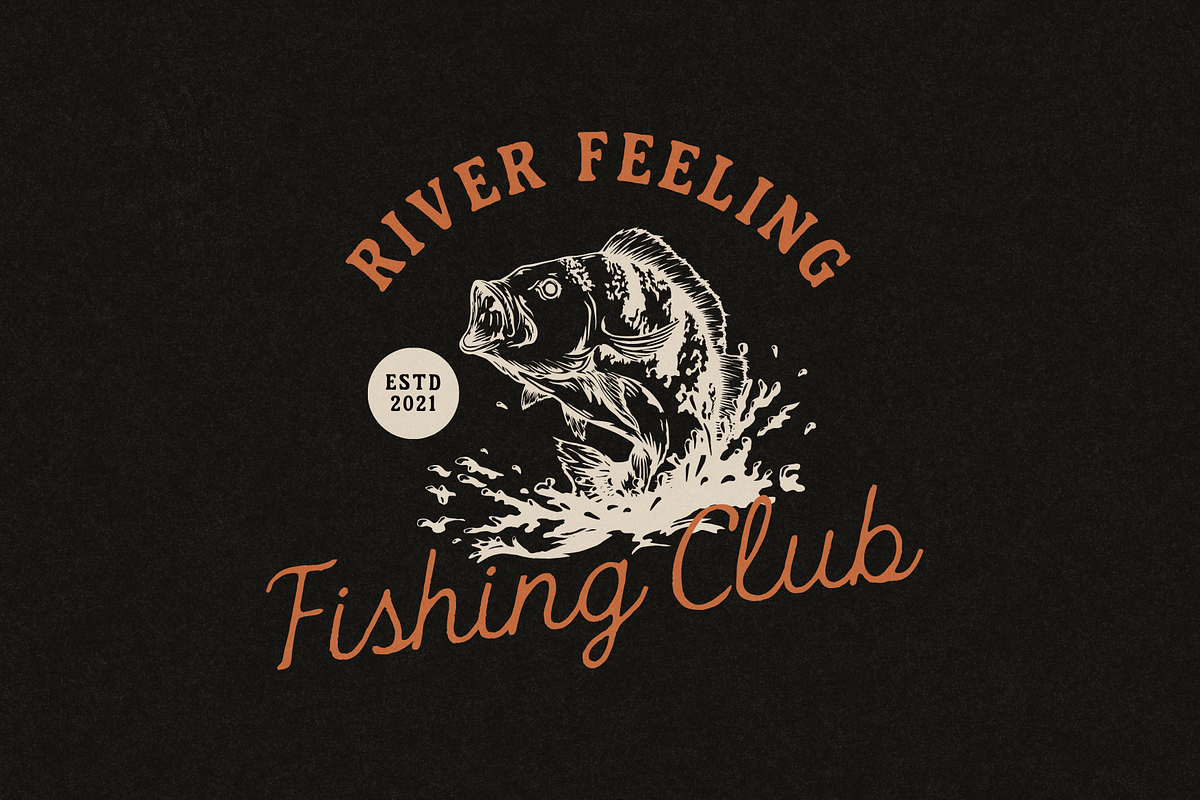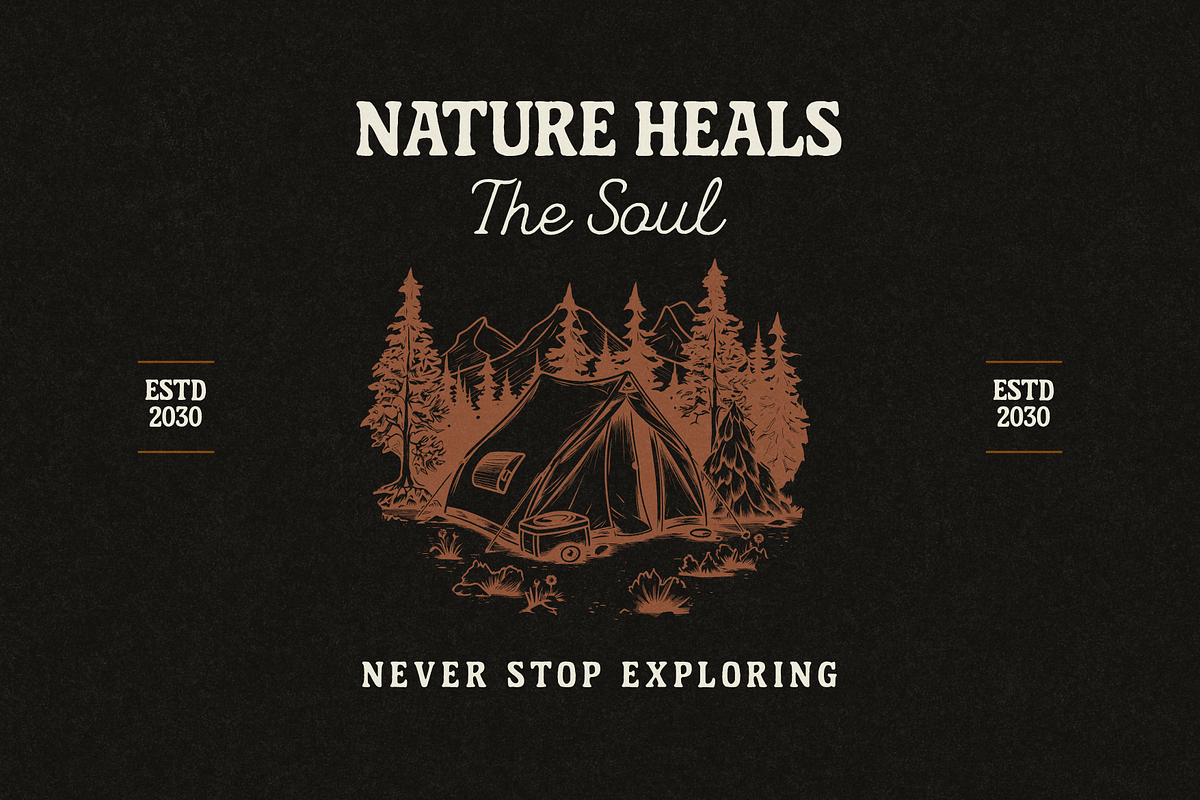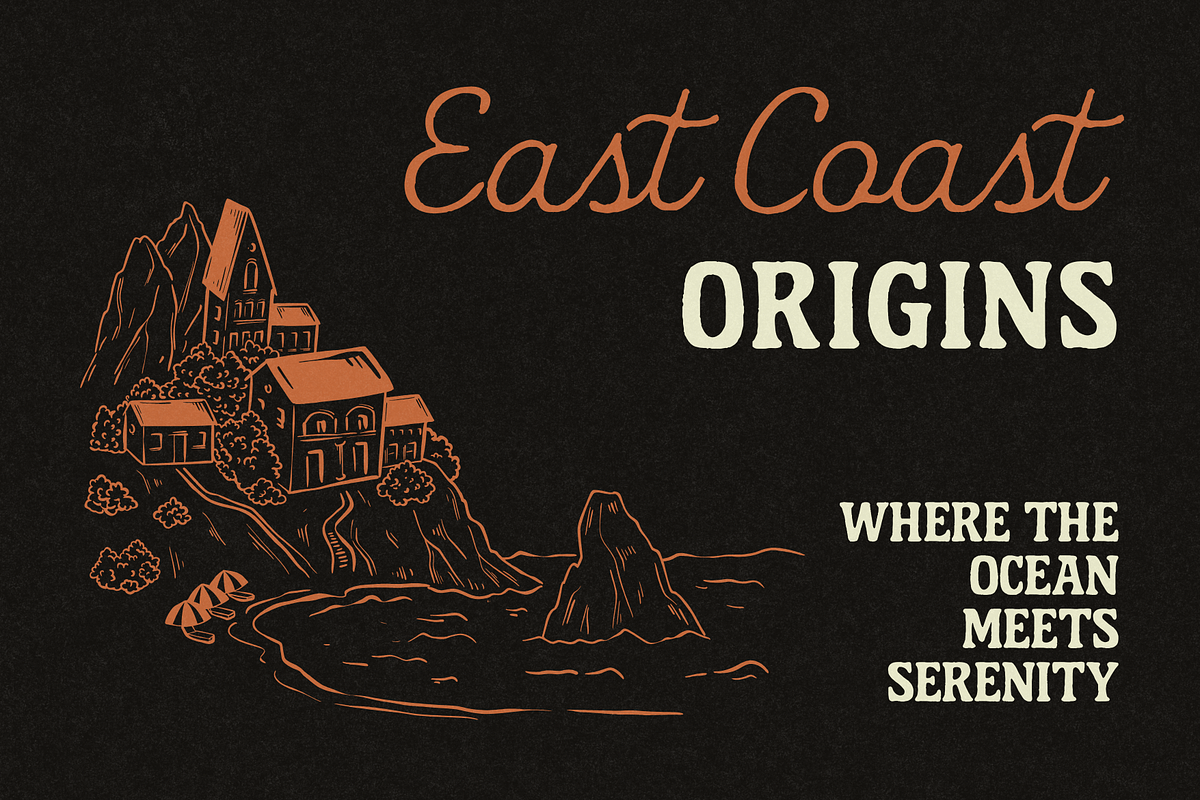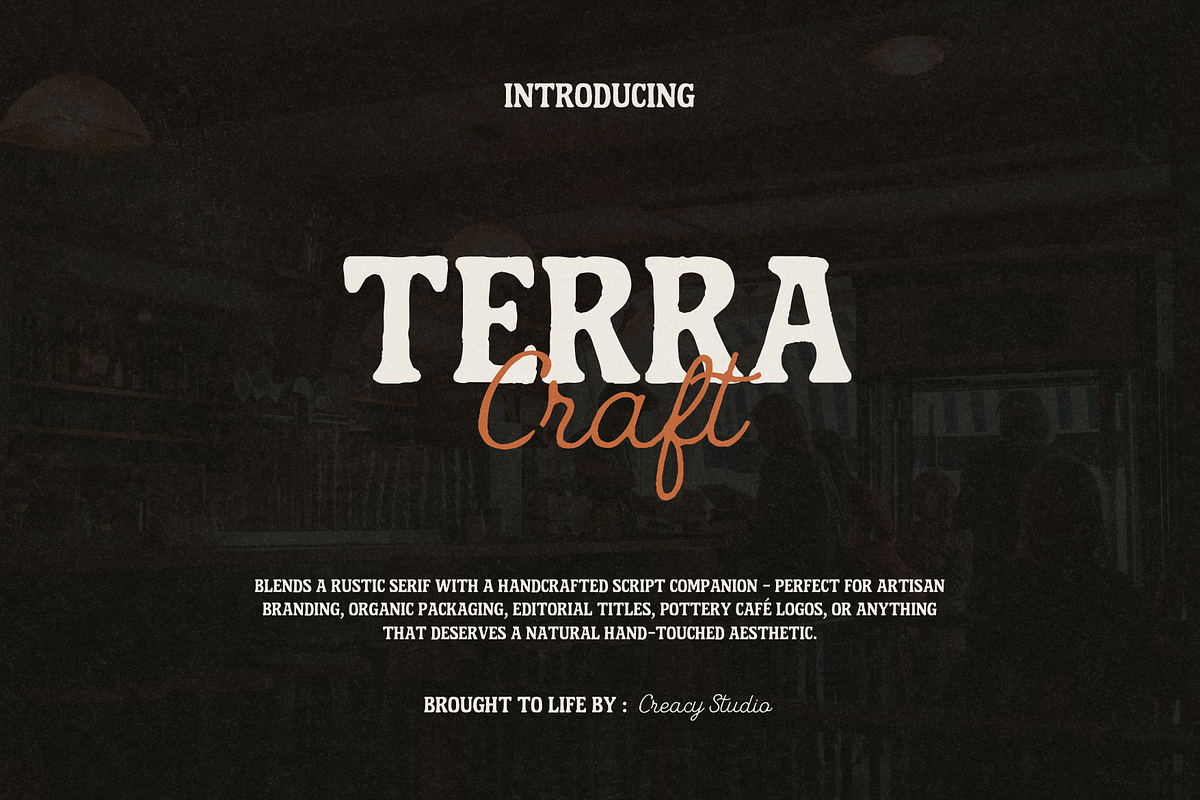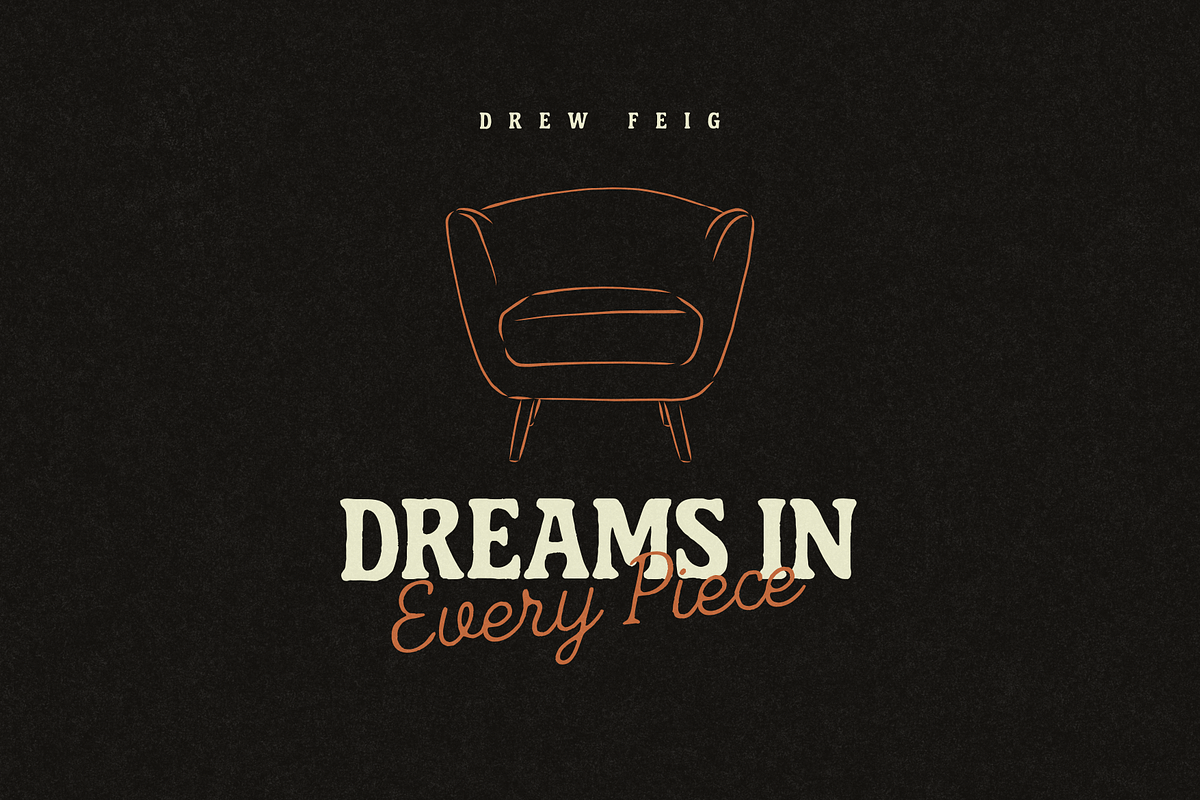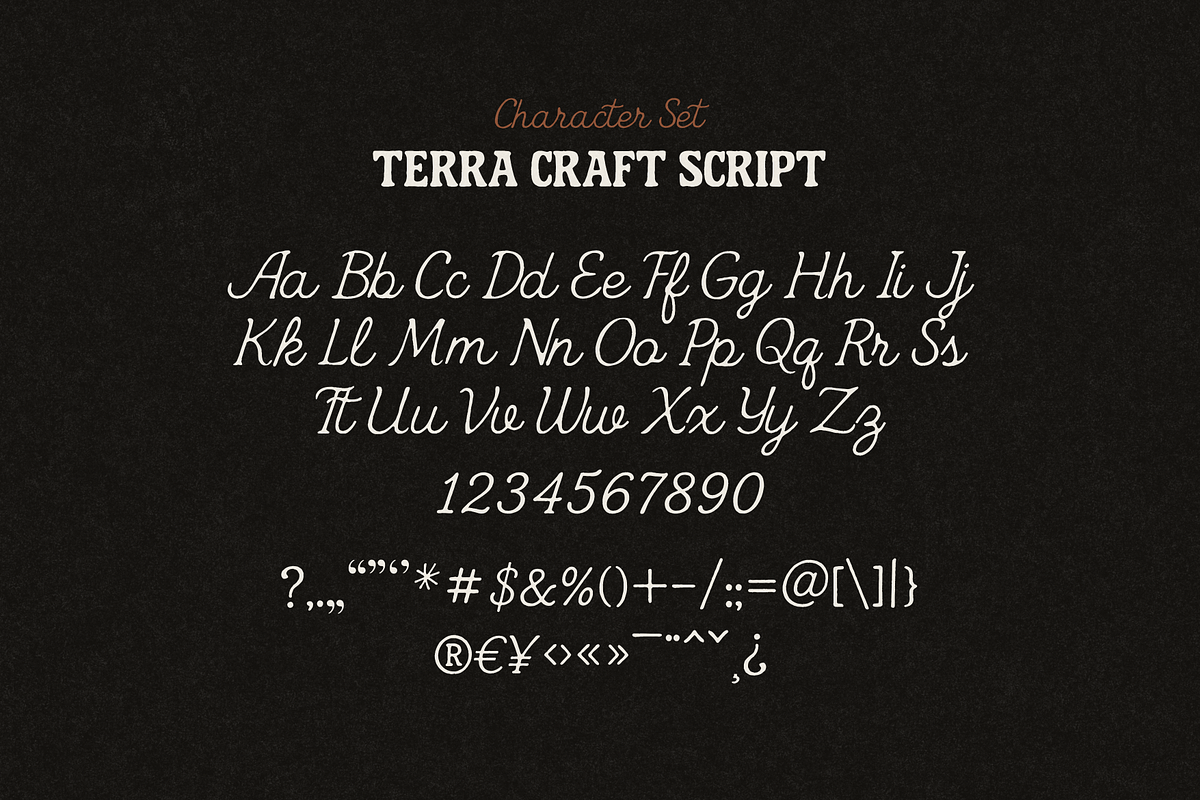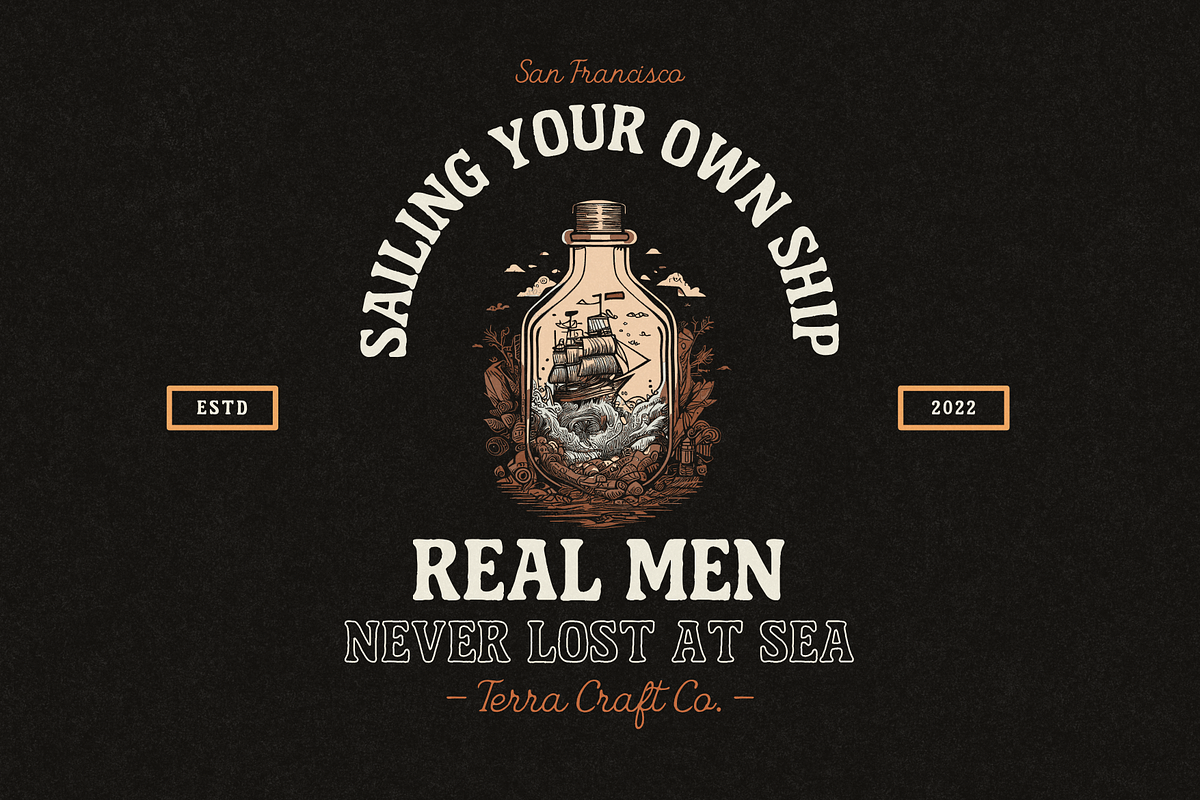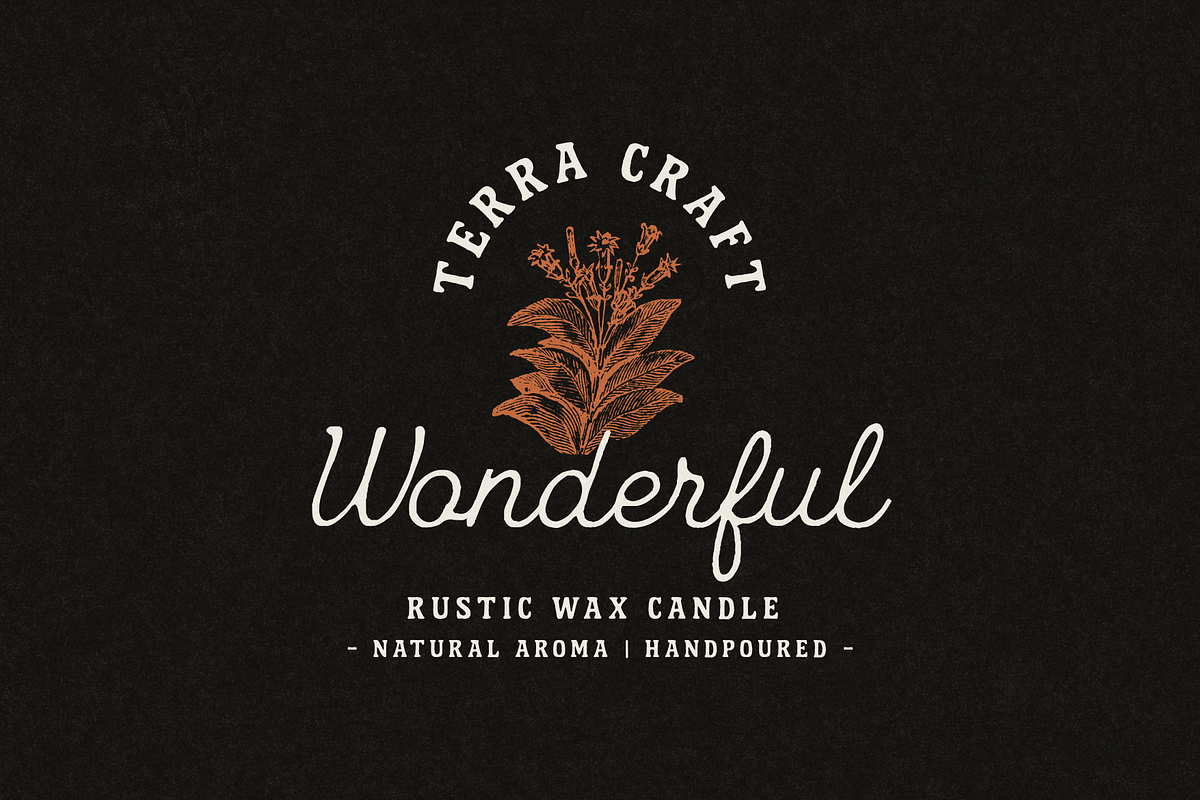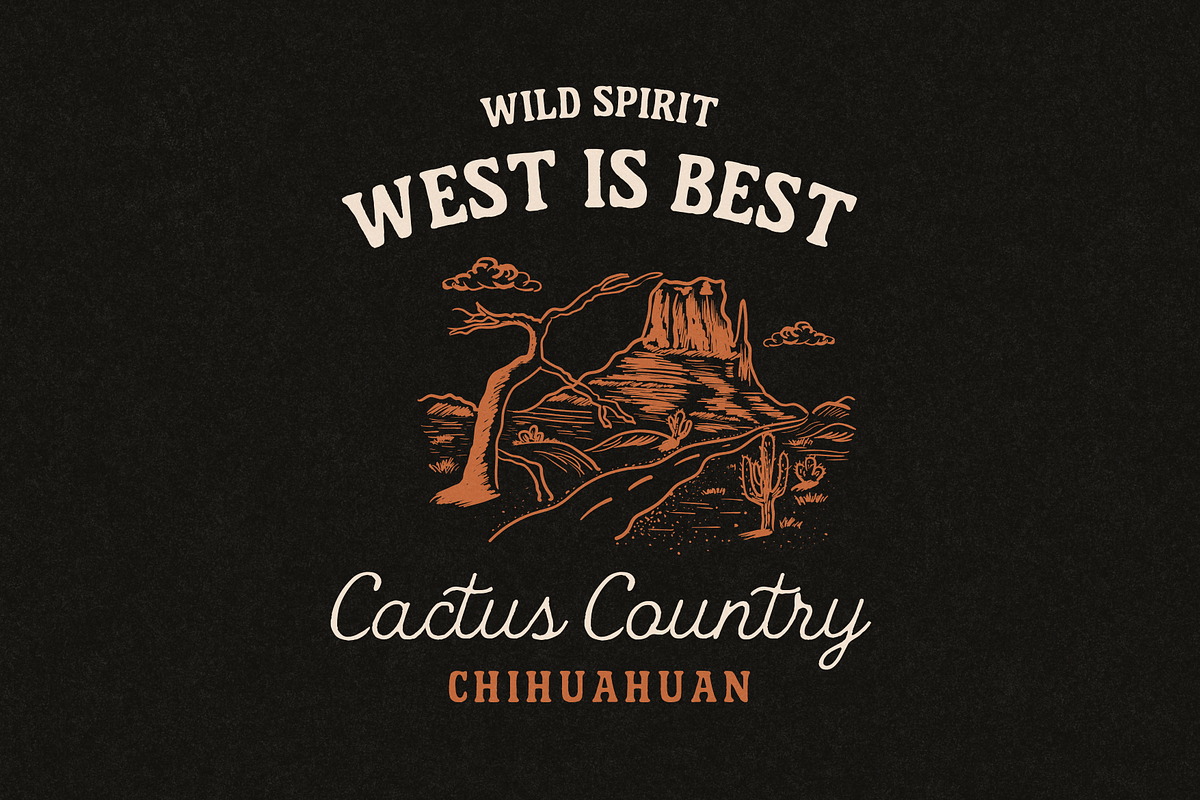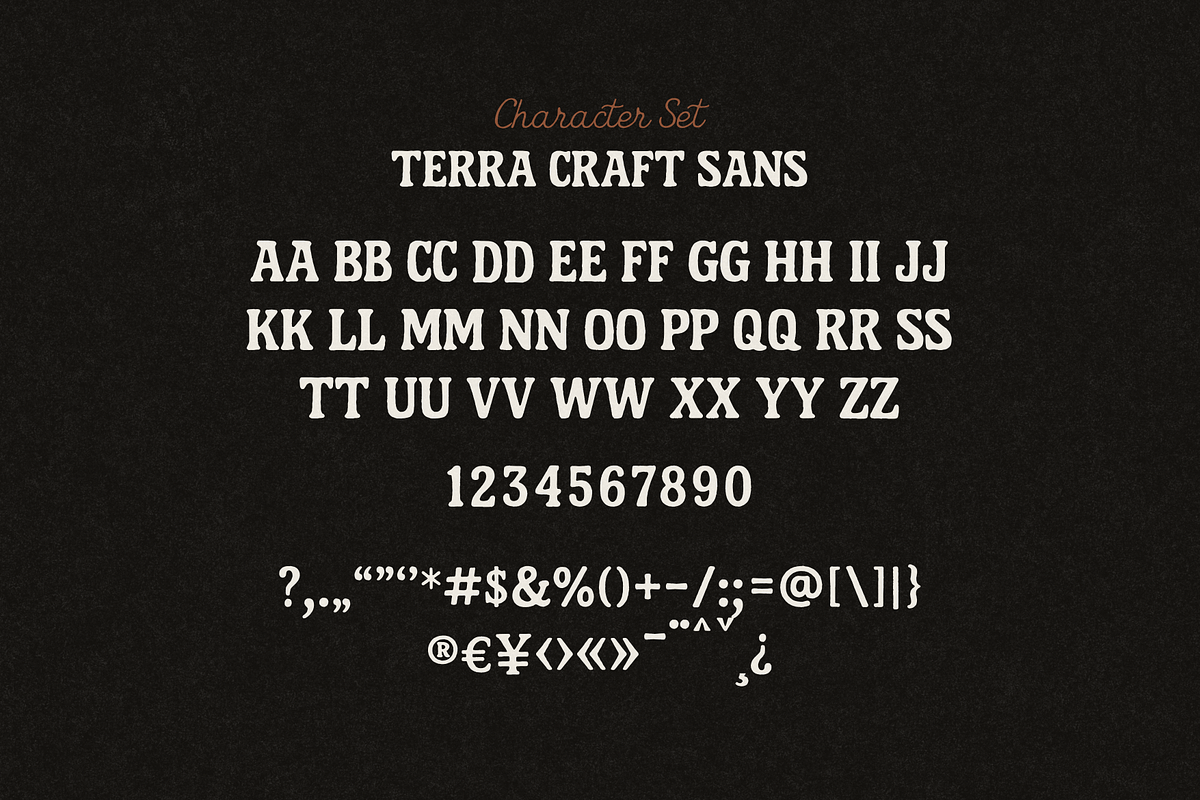
Terra Craft – Serif & Script Duo
Terra Craft is a handcrafted font duo that blends a bold rustic serif with a natural flowing script. Designed to bring warmth, authenticity, and a handmade touch, it is ideal for brands and projects that seek a crafted, organic feel.
- Terra Craft Serif (A–Z, a–z, 0–9, punctuation & symbols)
- Terra Craft Script (A–Z, a–z, 0–9, punctuation & symbols)
- Artisan branding and logos
- Organic product packaging
- Editorial titles and rustic posters
- Café and pottery signage
- Apparel, merchandise, and craft designs
- Rustic serif with bold, slightly imperfect handmade details
- Smooth flowing script that balances the serif’s strong presence
- Works beautifully in combination for headlines and taglines
- Evokes a timeless, vintage, and crafted aesthetic